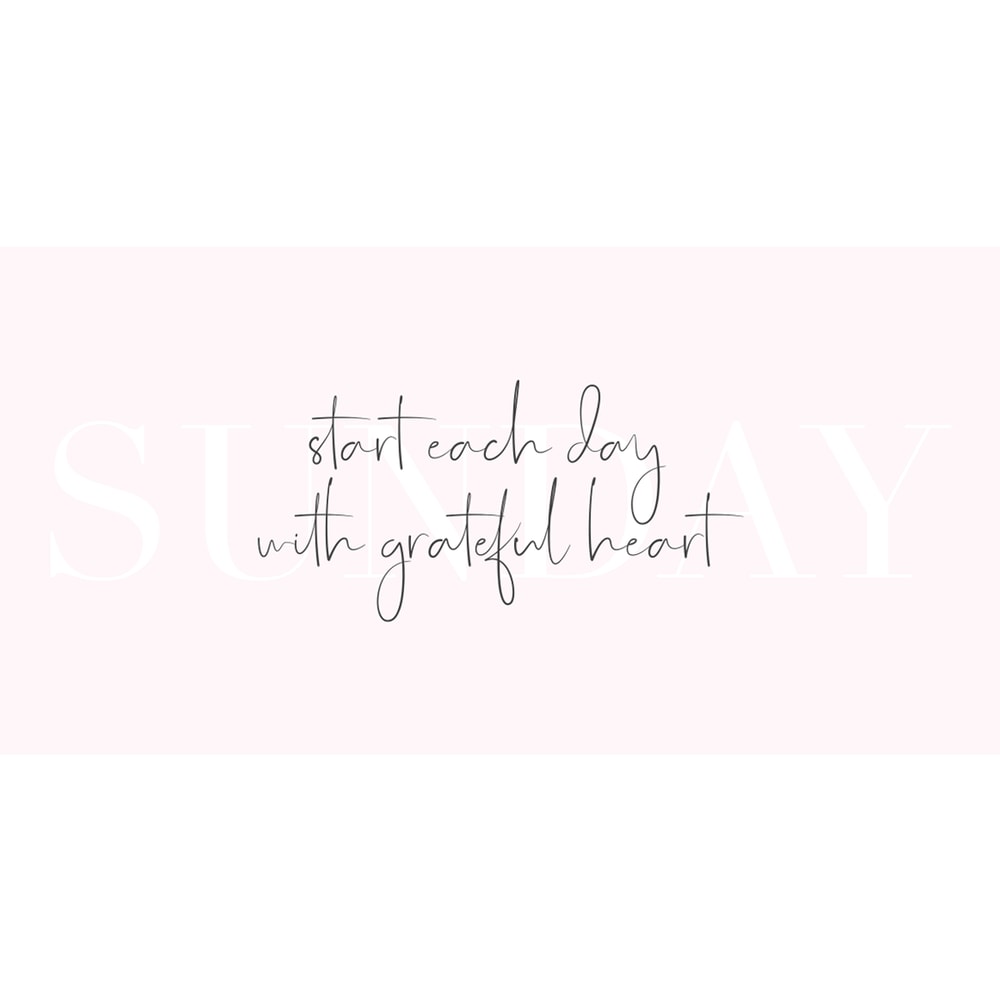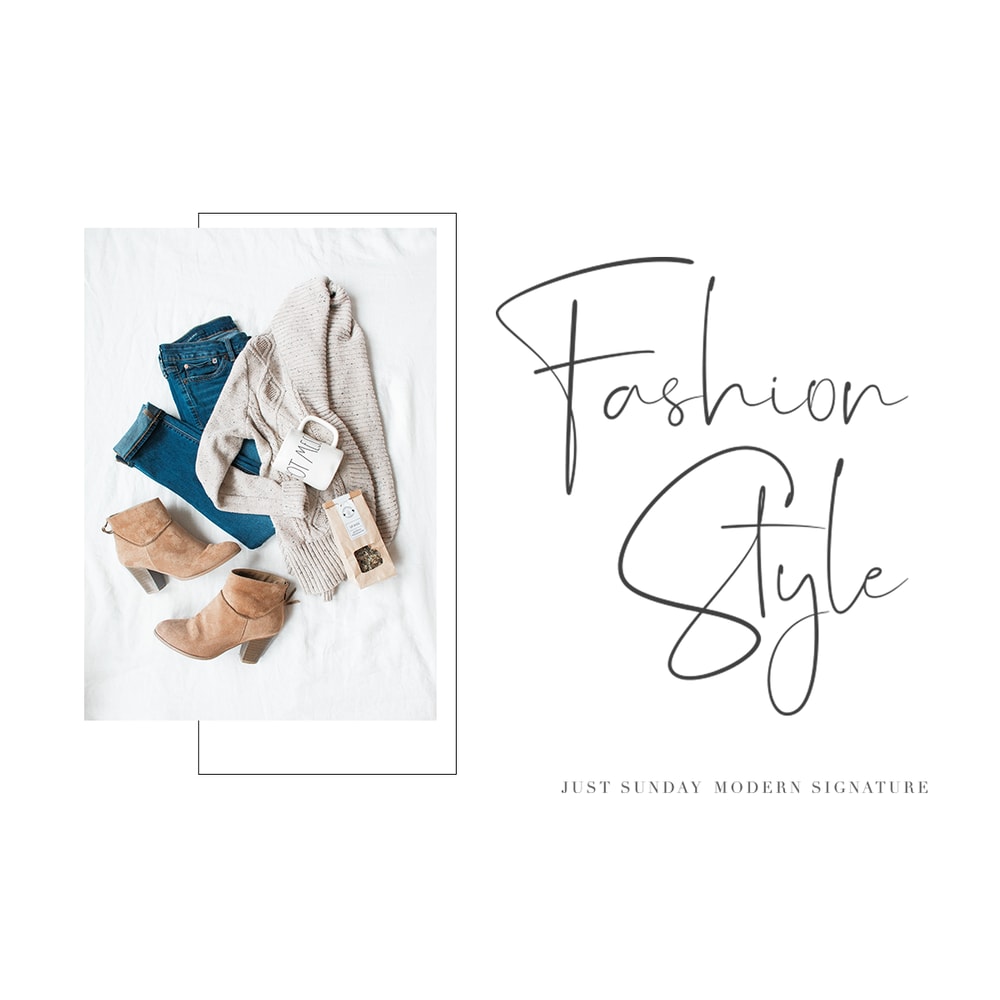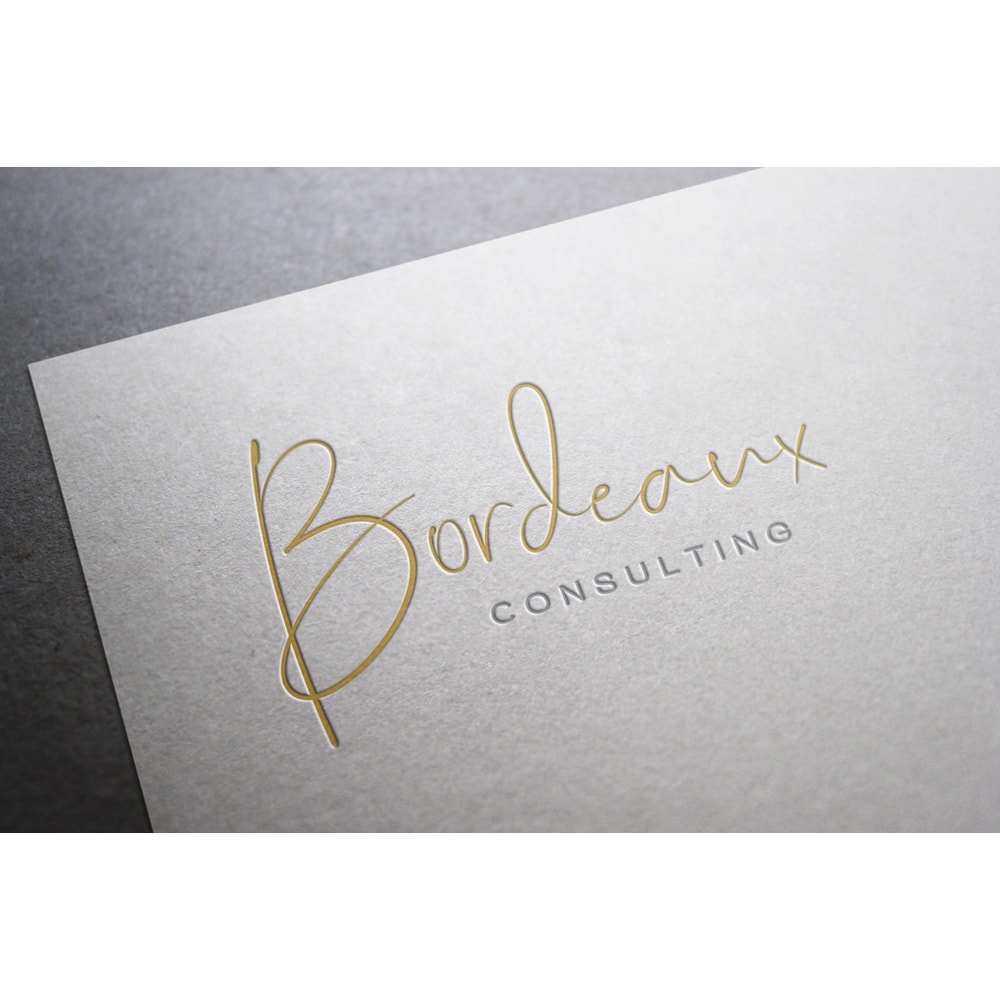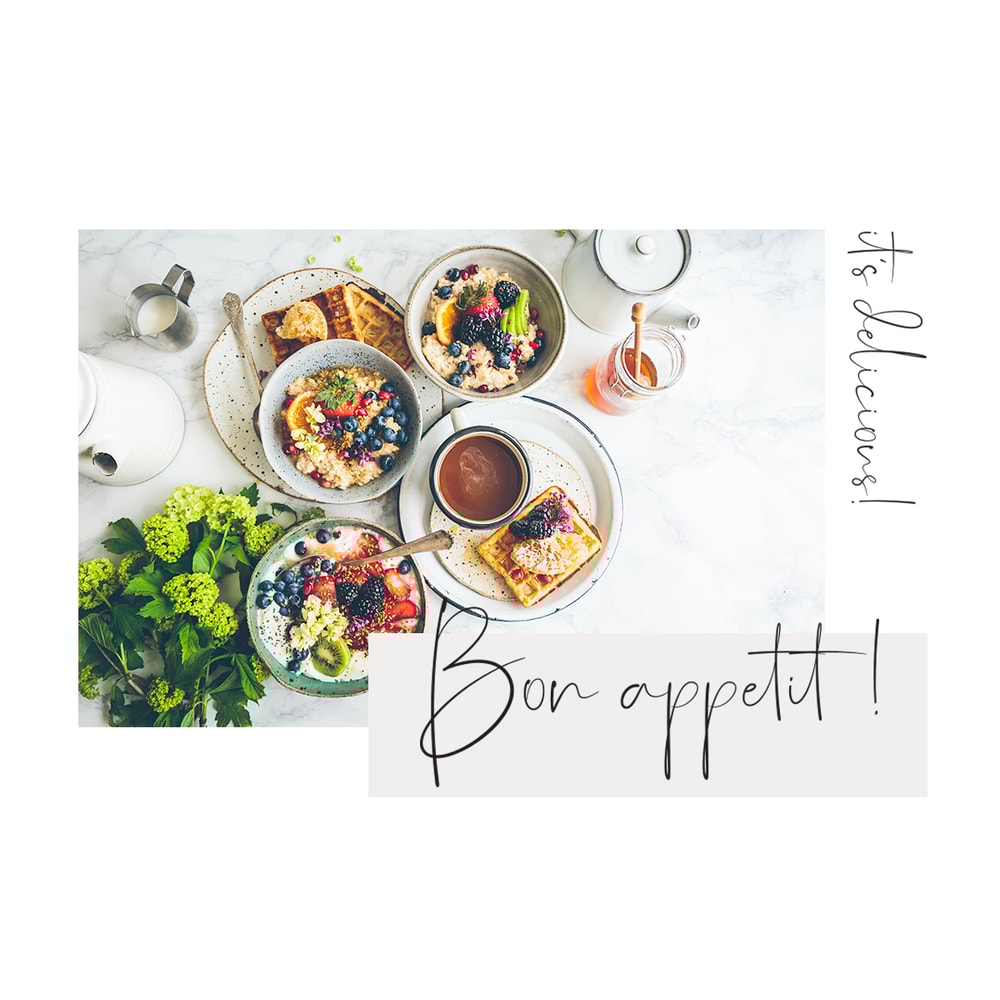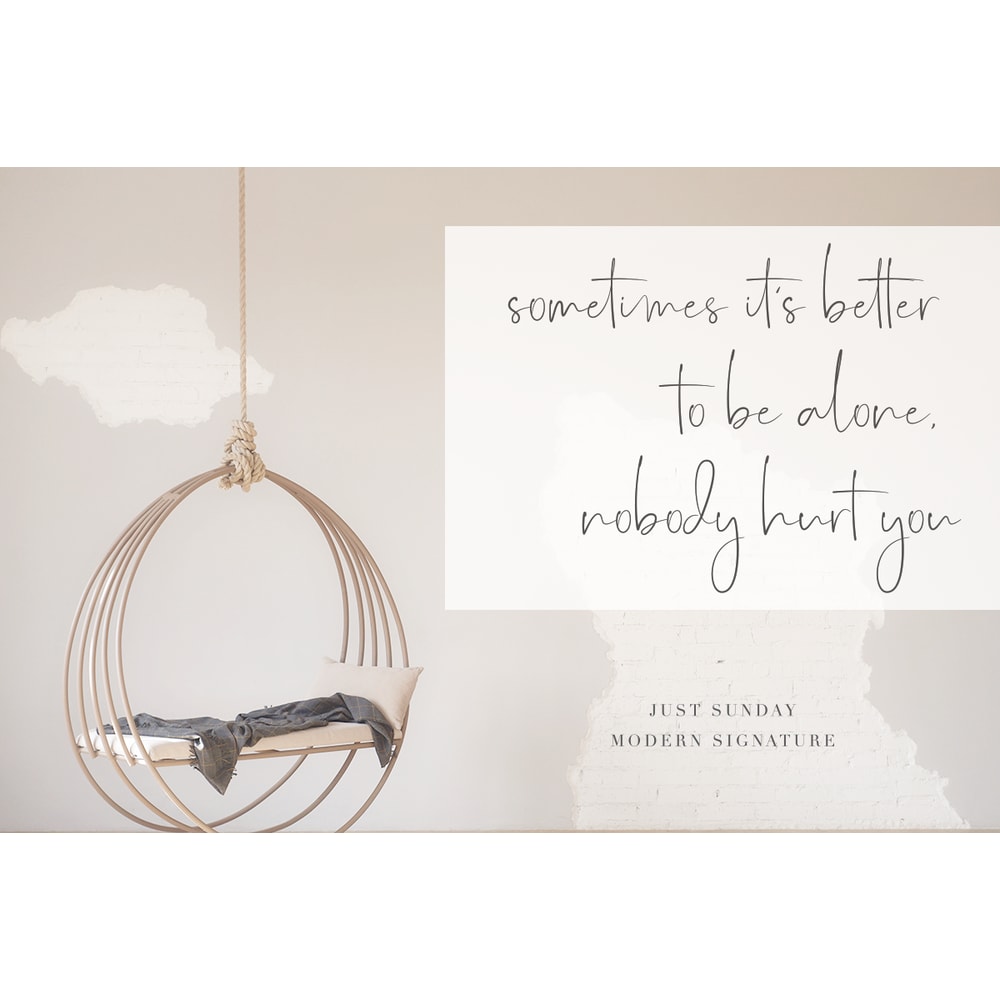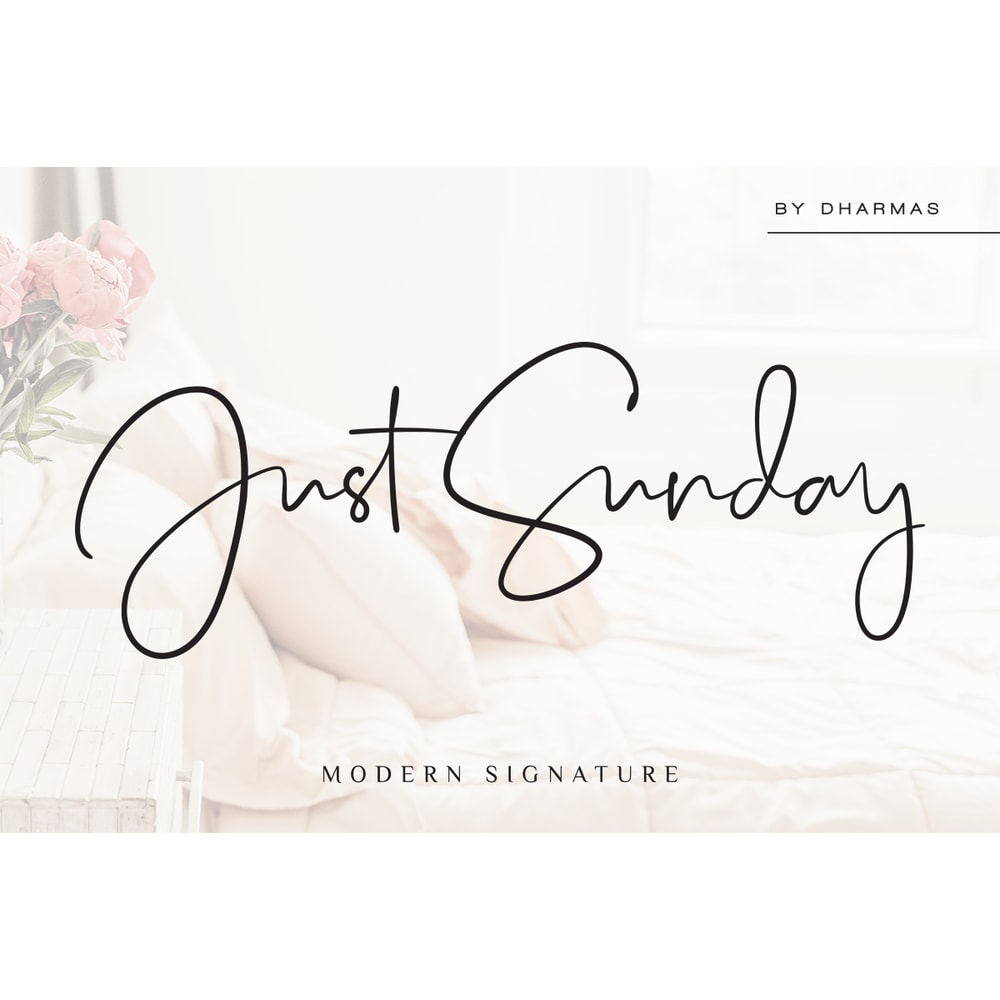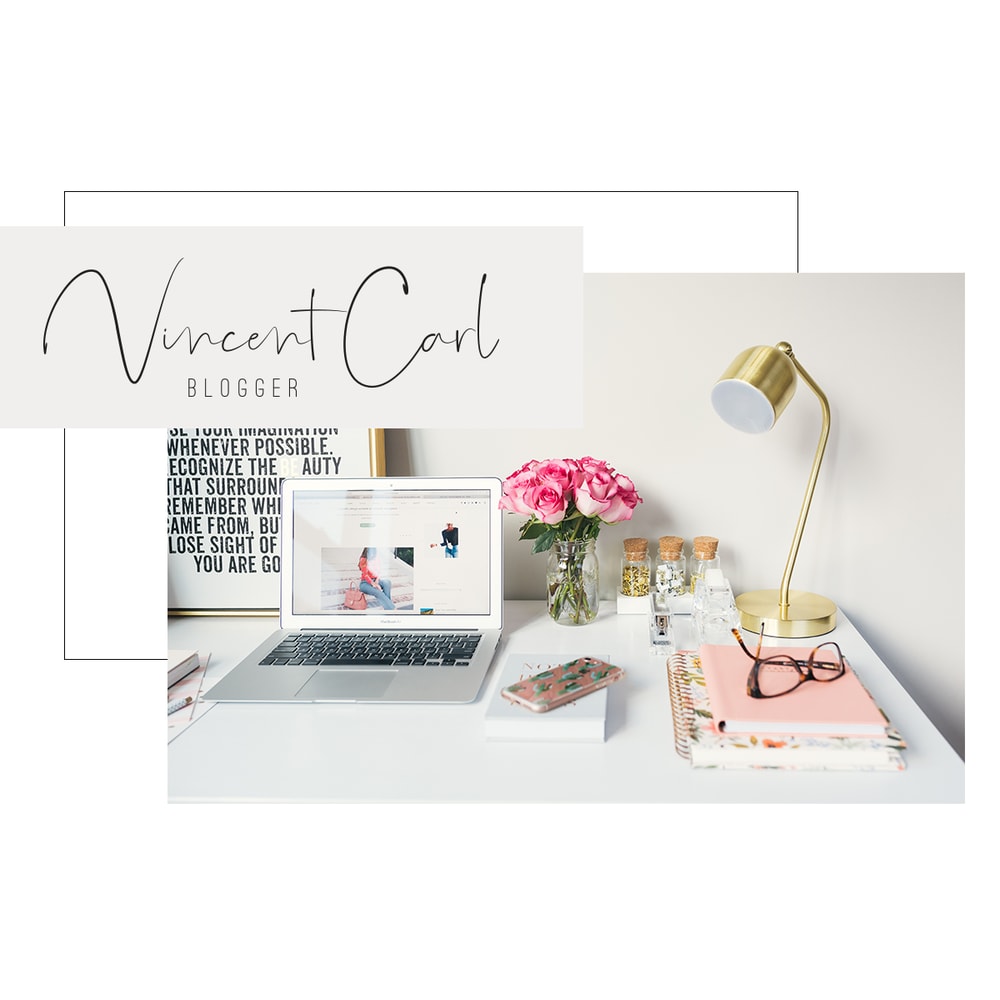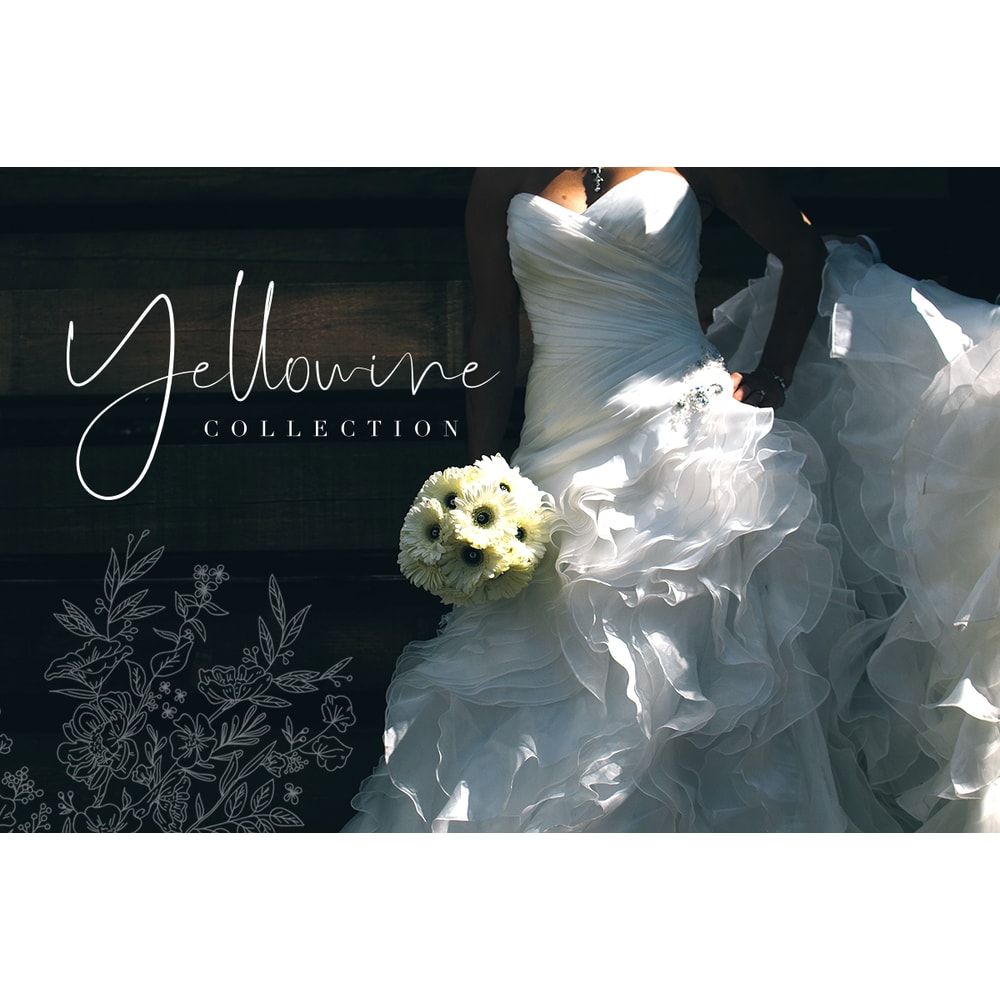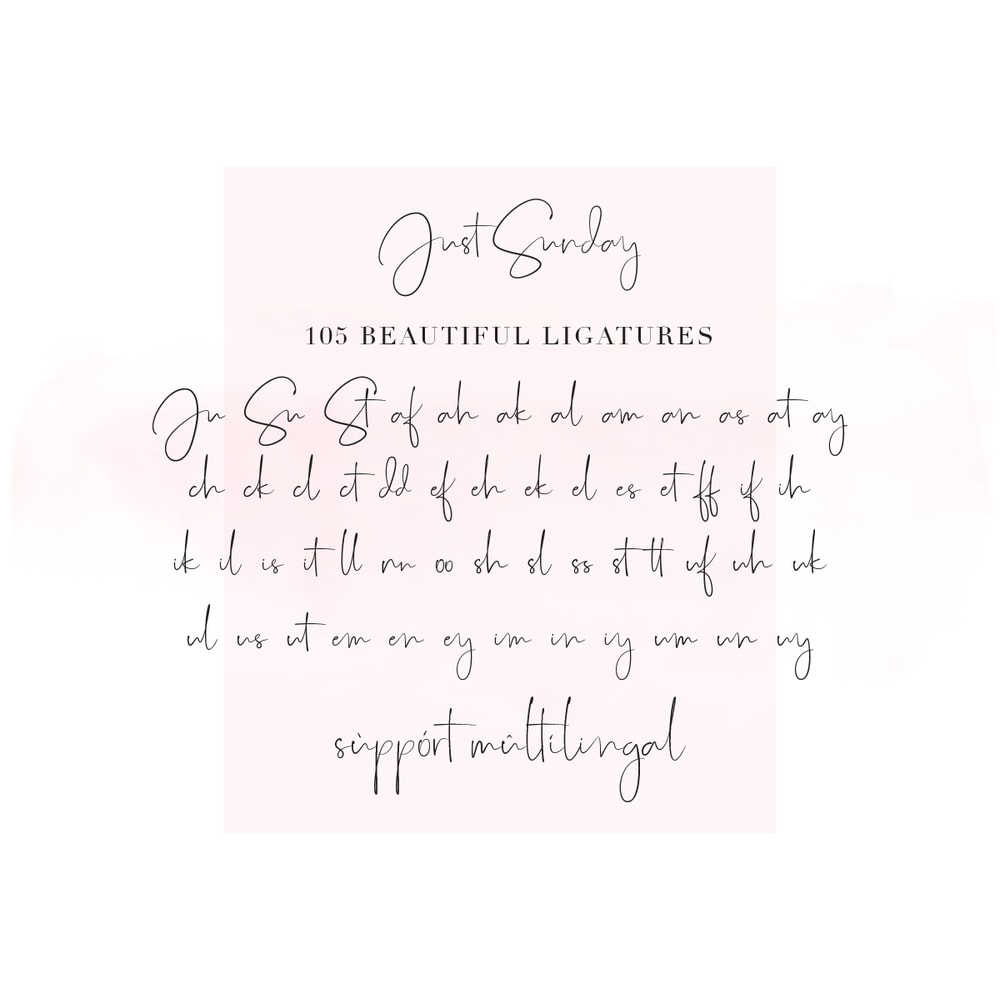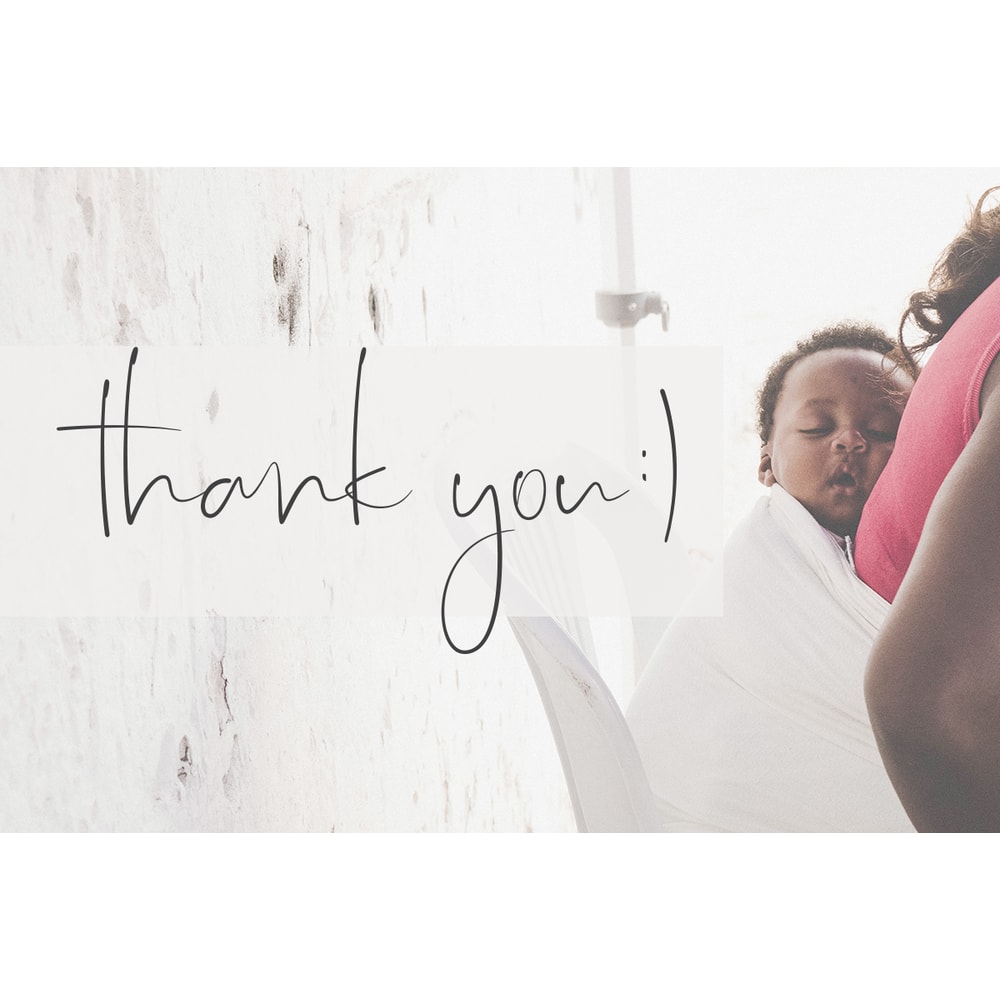
Just Sunday – Family Modern Script Trending Fonts - Digital Font
Just Sunday is modern feminine font, every single letters have been carefully crafted to make your text looks beautiful. With modern script style this font will perfect for many different project ex: logo, photography, watermark, quotes, blog header, poster, wedding, branding, logo, fashion, apparel, letter, invitation, stationery, etc.
Just Sunday also includes Regular and Bold, full set of uppercase and lowercase letters, multilingual symbols, numerals, punctuation. The font has smooth wet ink texture, so would be perfect for all types of printing techniques+you can do embroidery, laser cut, gold foil etc.
Just Sunday has beautiful ligature following :
Ju Su St af ah ak al am an as at ay ch ck cl ct dd ef eh ek el em en es et ey ff if ih ik im in il is it iy ll nn oo sh sl ss st tt uf uh uk um un ul us ut uy